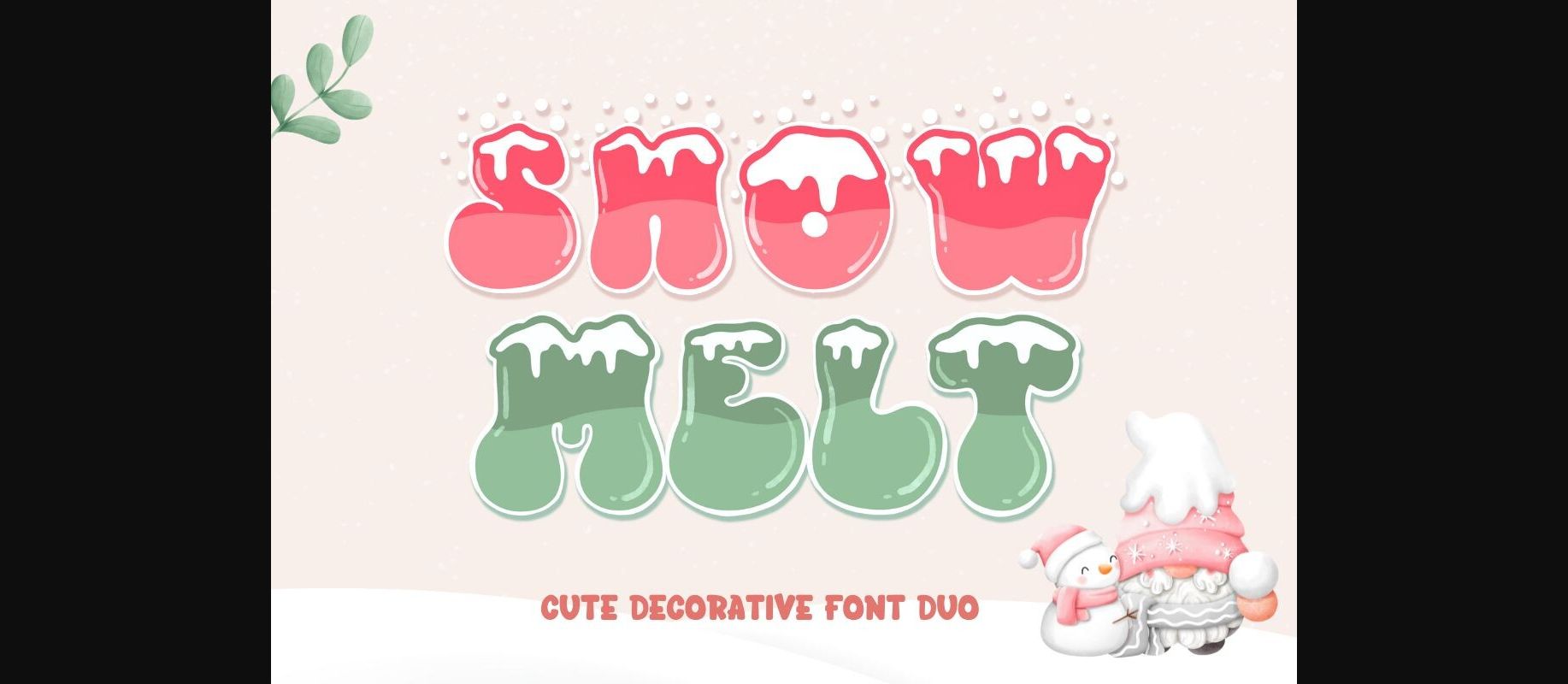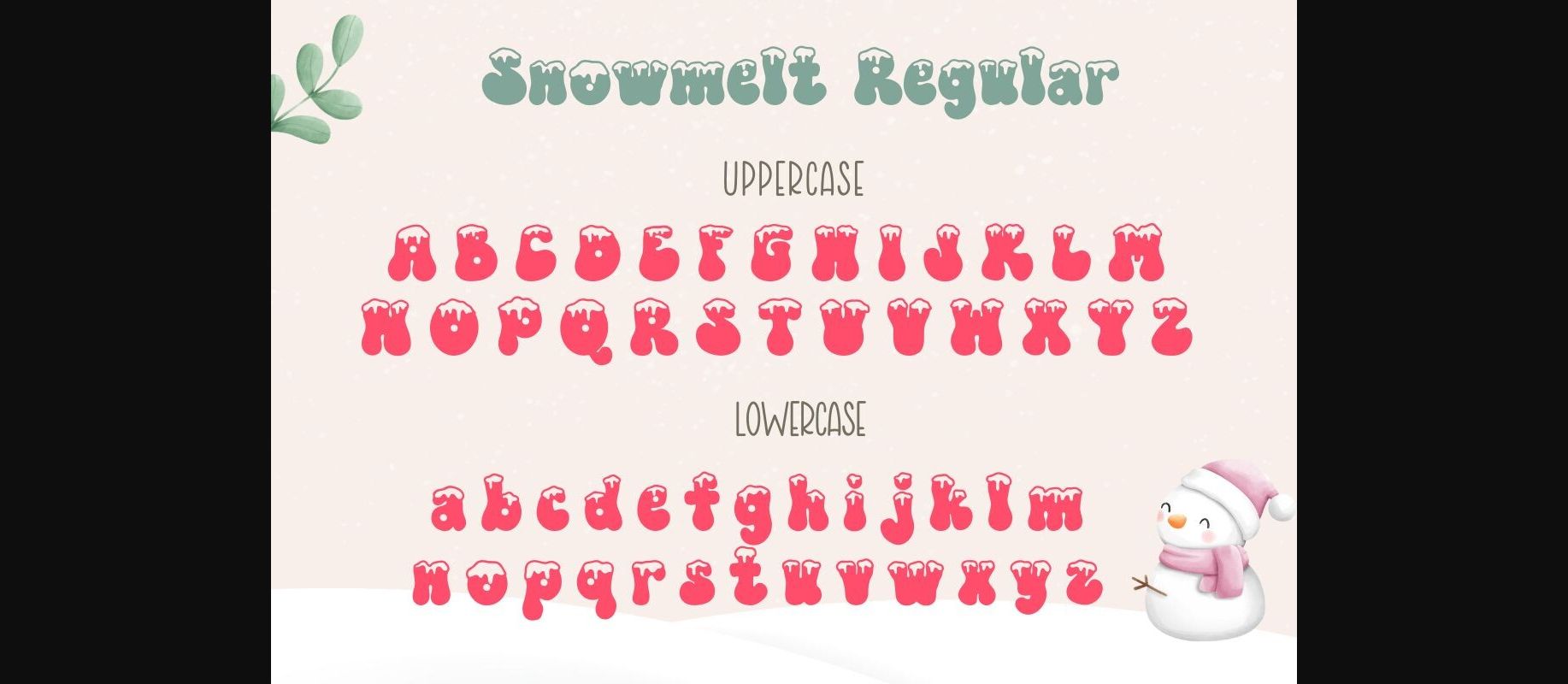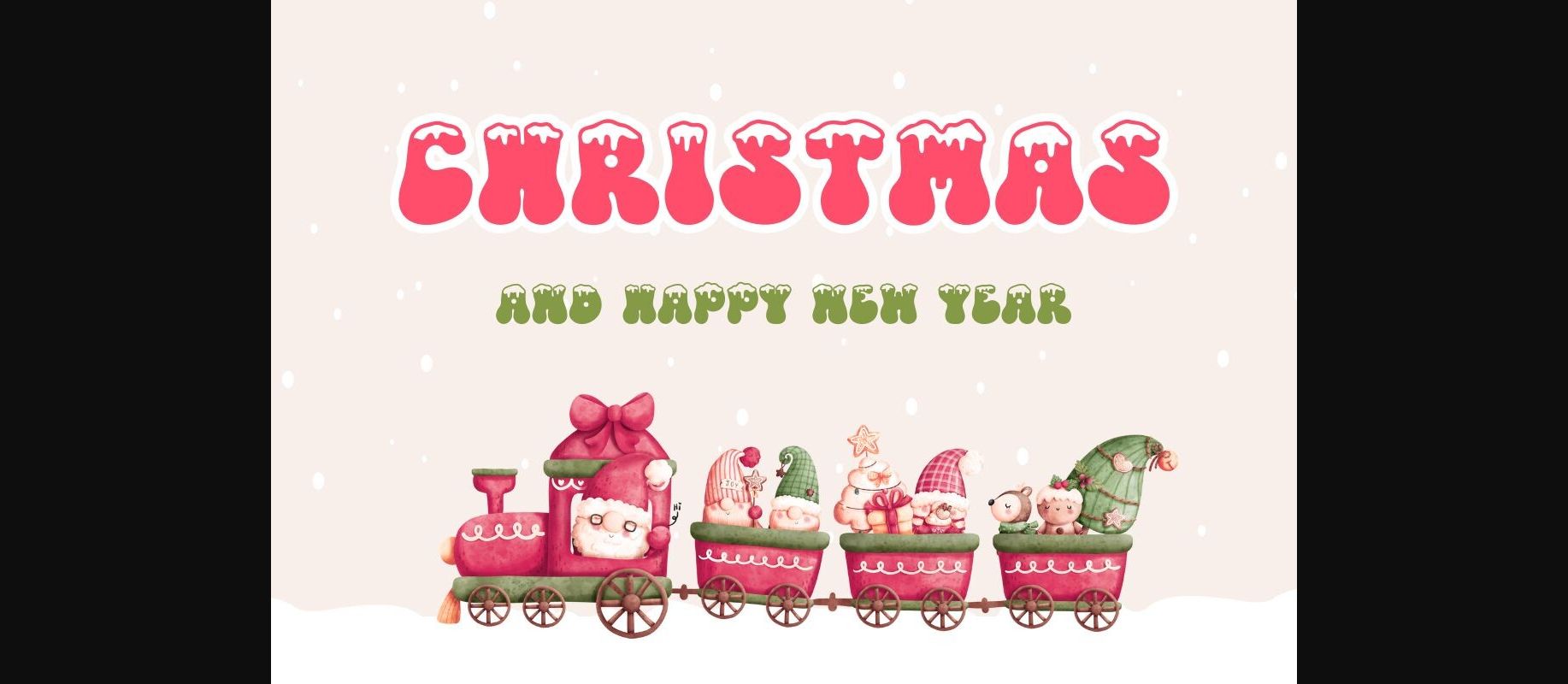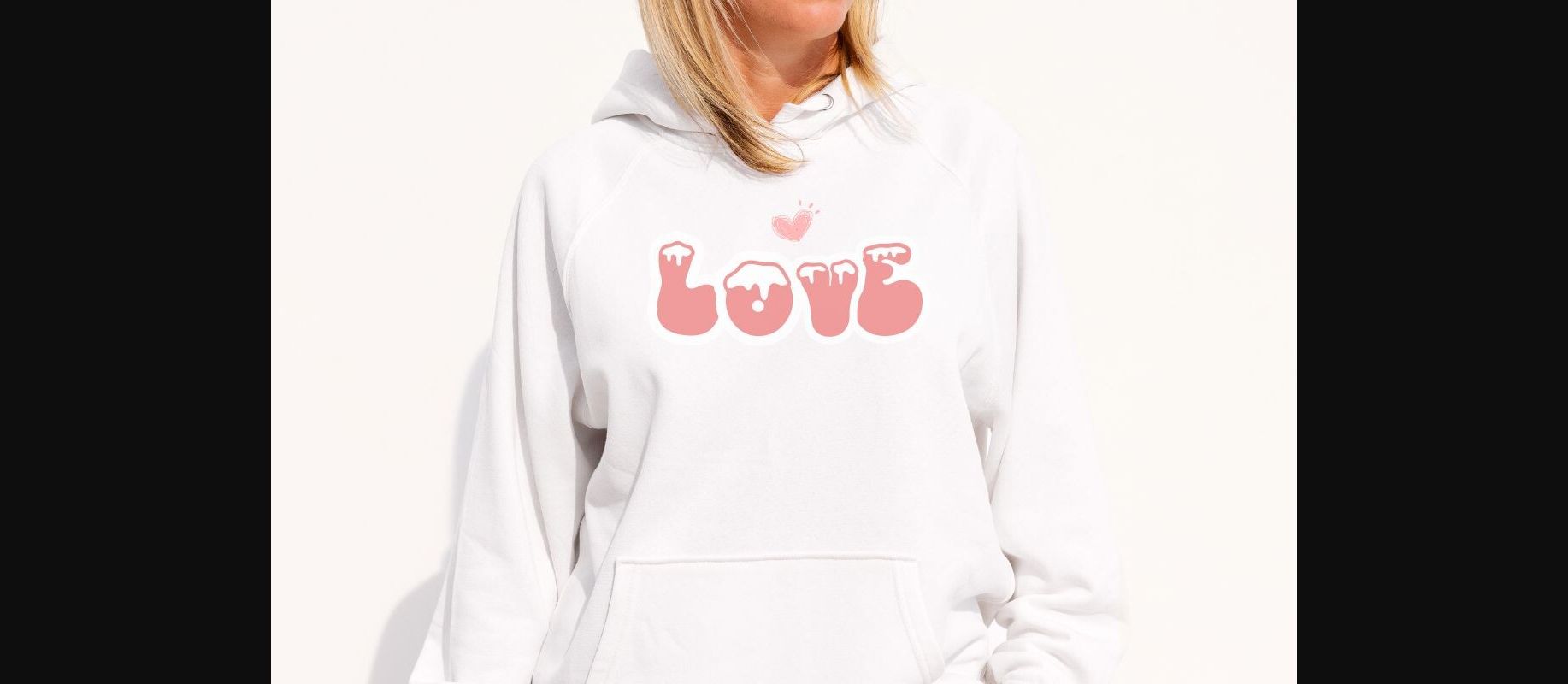
About Snowmelt Font
Snowmelt is a cute decorative Duo font. This font has a special design with snowmelt on top of the letters making it look more unusual and interesting. You can use it to create Christmas cards, wedding invitations, decorate bags, drinking glasses, and beautiful stationery.